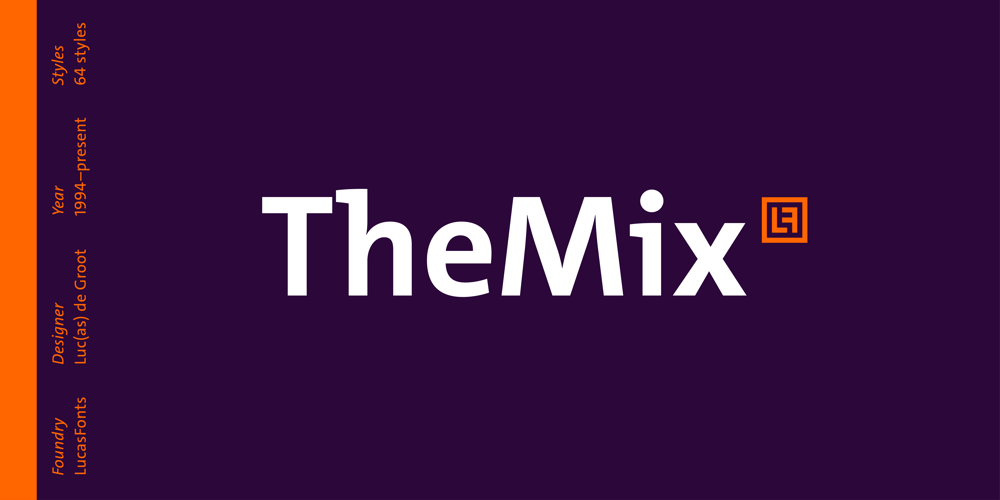
TheMix
TheMix font
TheMix Font Family was designed by Luc(as) de Groot and published by LucasFonts. TheMix contains 68 styles and family package options. “TheMix” is a semi-serif typeface with low-contrast – i.e., the differences between thin and thick strokes are not very pronounced. Yet the reference to writing with the broad-nibbed pen is still present, giving the letters a diagonal stress and a forward flow that facilitates reading.